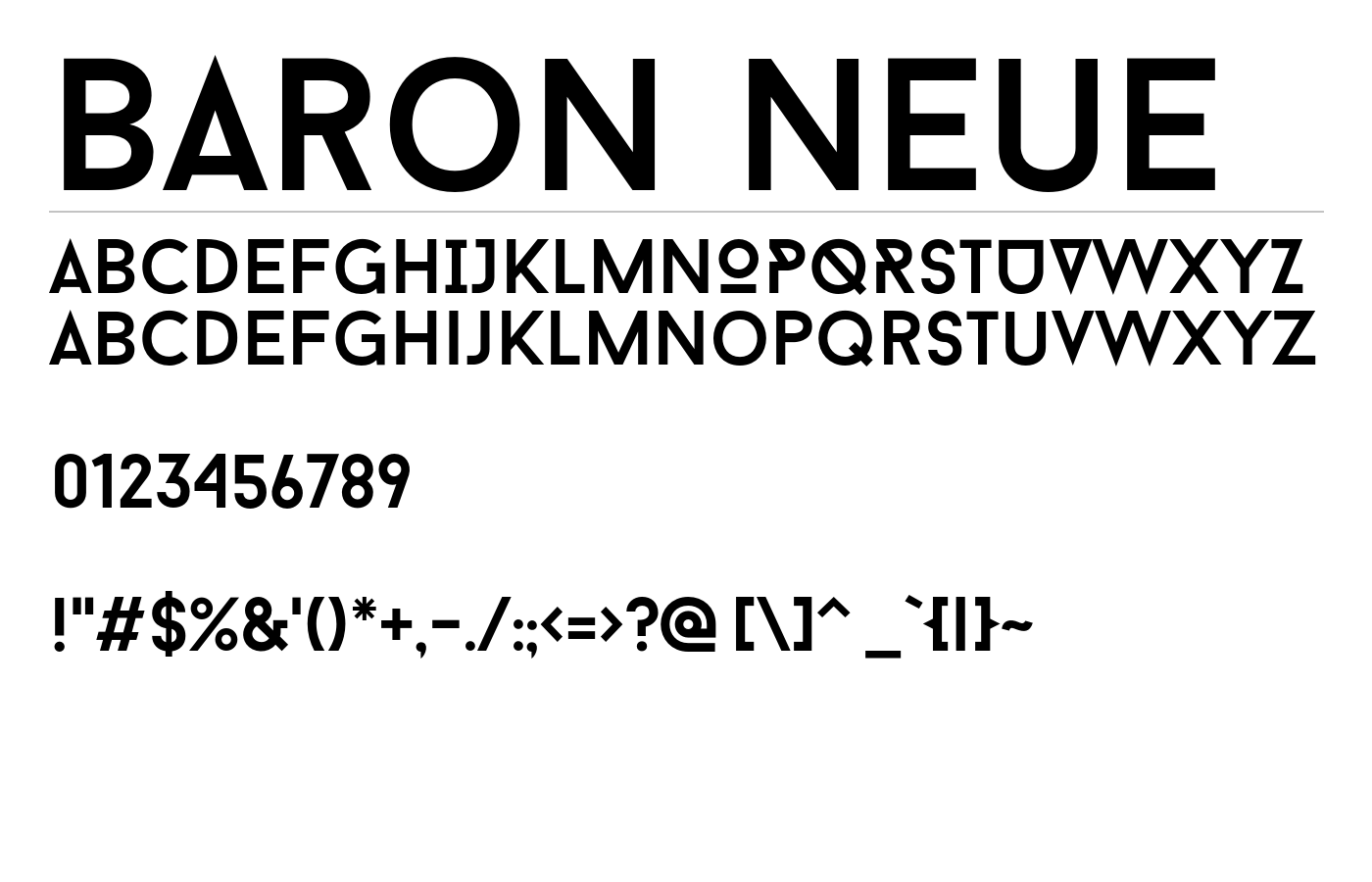
Baron Neue is a bold, geometric sans serif font with strong, clean lines and a modern, structured feel. Its slightly condensed width and high x-height enhance readability while unique shapes like the triangular "A" and distinctive "Q" add character, making it ideal for contemporary branding, headlines, and editorial design where a confident, stylish look is desired. This font works well for projects that want to convey clarity and sophistication with a touch of personality.
Baron Neue Font
About Baron Neue Font
| Font family | Baron Neue Font |
| Designer | Frank Hemmekam |